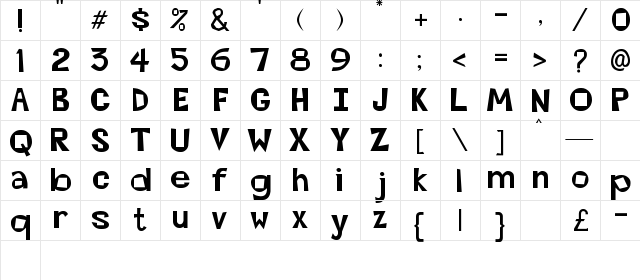
Abierta Regular
Design Context for Abierta Typeface
Abierta takes a measured approach to typography — its balanced proportions and neutral character make it a reliable workhorse for both digital and print work.